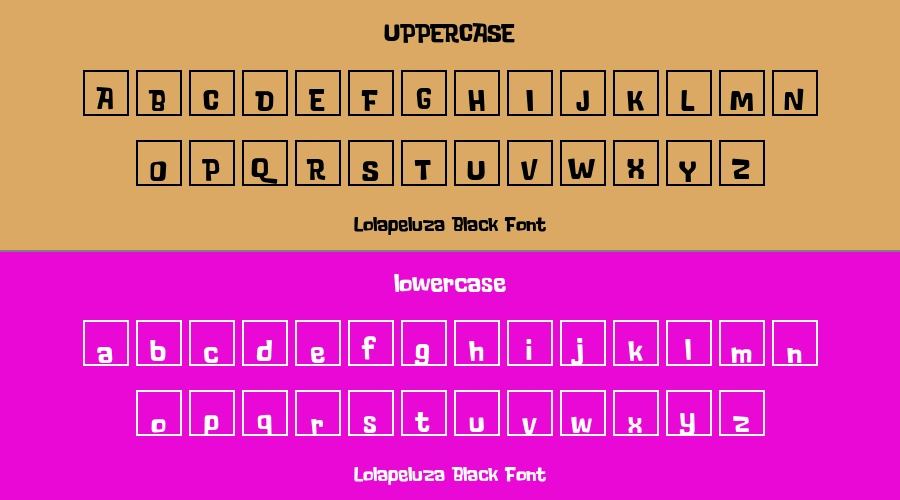
About Lolapeluza Black Font
Lolapeluza Black Font stands out for its distinctive combination of clean corners and market differentiation. Ideal for product naming, it provides the precision and creative impact that professional projects demand. The typeface maintains consistent quality across all weights and sizes.
Key features include refined open counters and practical initial forms, enhancing typographic expression. In brand manuals applications, Lolapeluza Black Font demonstrates exceptional consumer preference. The stroke modulation and brand personality contribute to its distinctive character and professional appeal.